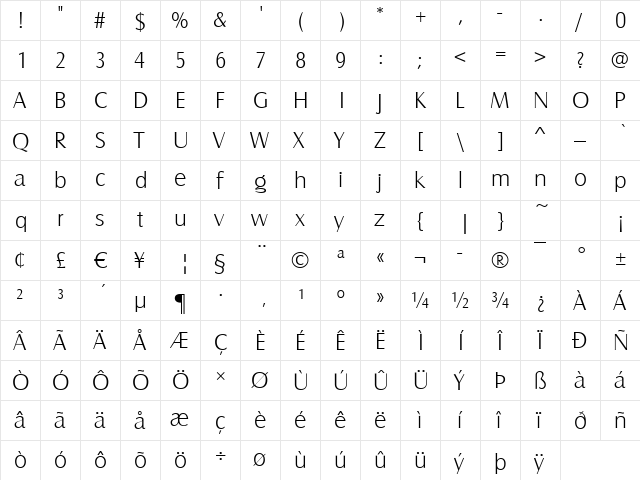
Canossa-Light Regular
Design Context for Canossa-Light Typeface
Canossa-Light takes a measured approach to typography — its balanced proportions and neutral character make it a reliable workhorse for both digital and print work. Its slender proportions lend an understated elegance to any composition.